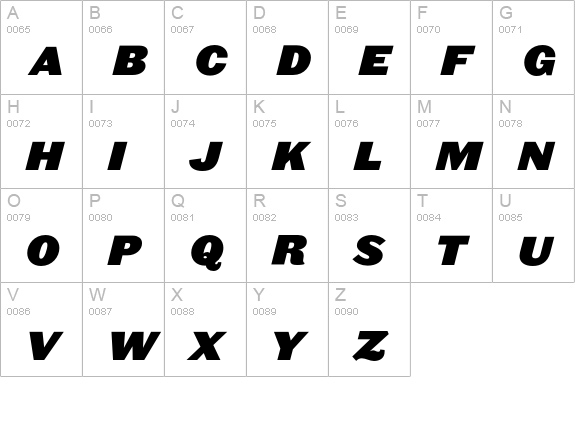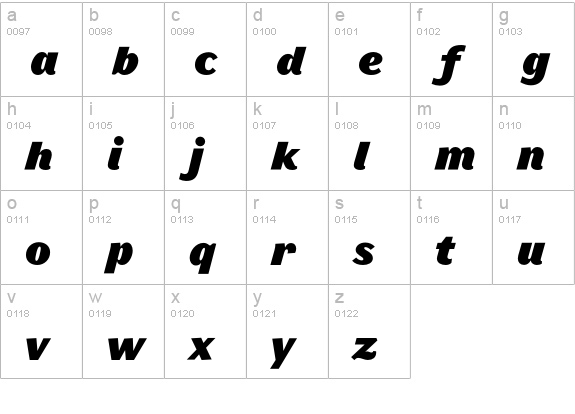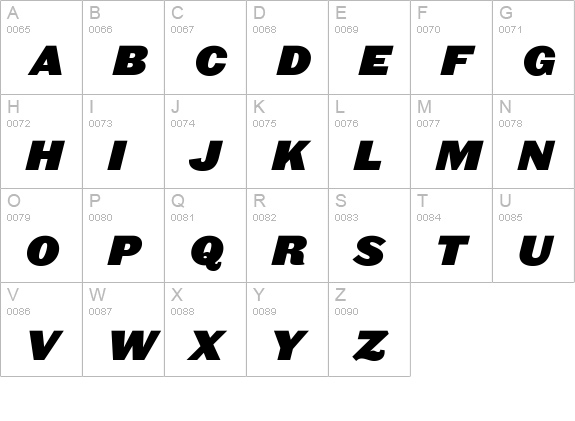
Leviathan-HTF-Black-Italic Font Details
Leviathan-HTF-Black-Italic is a maximum-weight, dramatic, italic variant in the Leviathan typeface family \xE2\x80\x94 well suited to maximum-impact headlines, posters, and packaging.
Leviathan-HTF-Black-Italic is a bold and dynamic font that exudes strength and power. With its sleek and elegant design, this font is perfect for making a statement in any creative project or design. The italicized style of Leviathan-HTF-Black-Italic adds a touch of sophistication and uniqueness, making it stand out from the crowd. The thick strokes and sharp angles give it a commanding presence, while the subtle curves add a touch of elegance. Whether you're looking to create eye-catching headlines, captivating logos, or striking banners, Leviathan-HTF-Black-Italic is the perfect choice. Its versatility allows it to be used in a variety of design projects, from print to digital. One of the best things about Leviathan-HTF-Black-Italic is that it is freely available to download at FontsMarket.com. This means you can add this amazing font to your collection without any cost. Its availability makes it accessible to designers, students, and anyone looking to enhance their projects with a powerful and captivating font. So, why wait? Take your designs to the next level with Leviathan-HTF-Black-Italic. Download it for free today at FontsMarket.com and unleash your creativity.